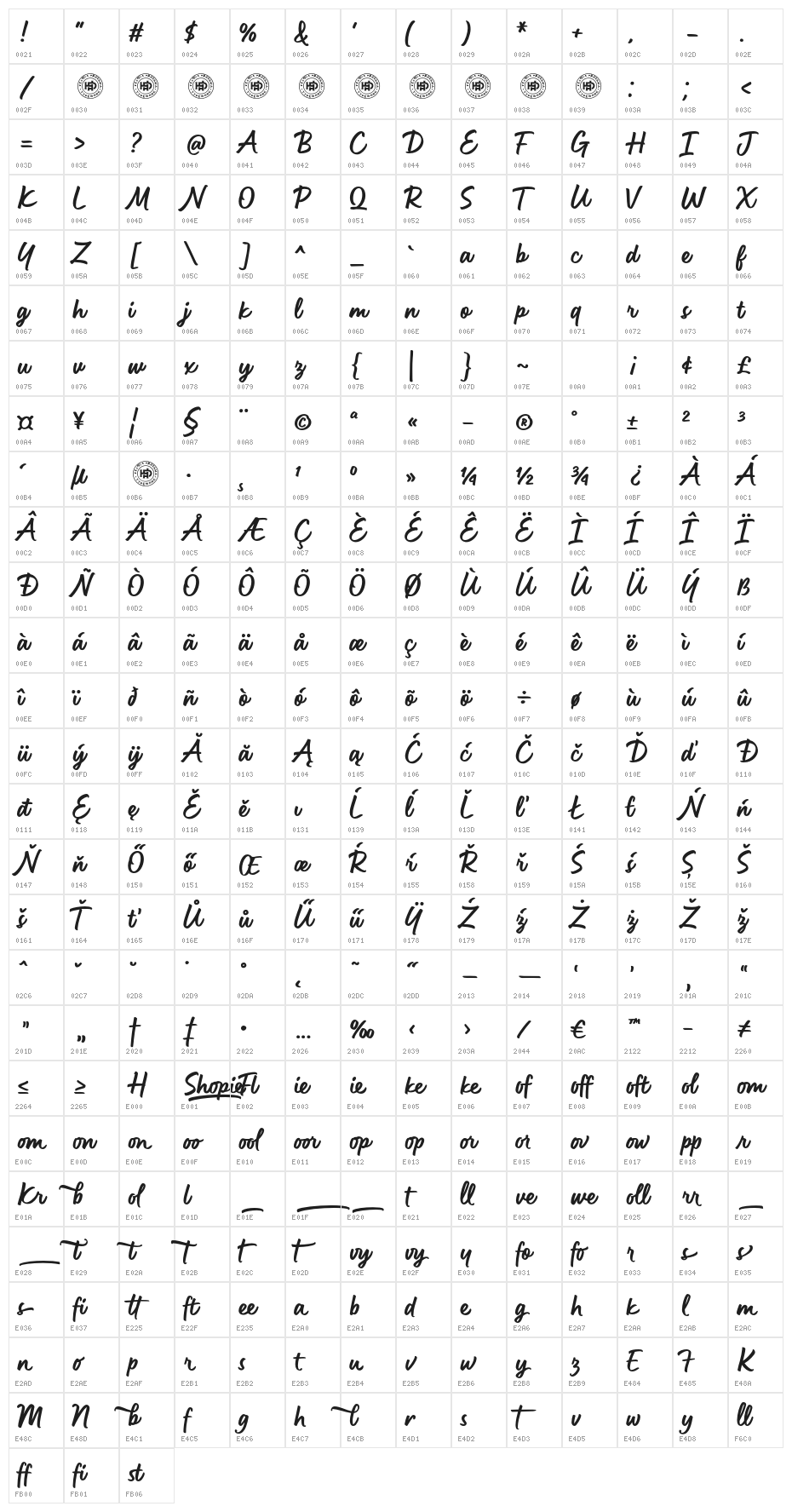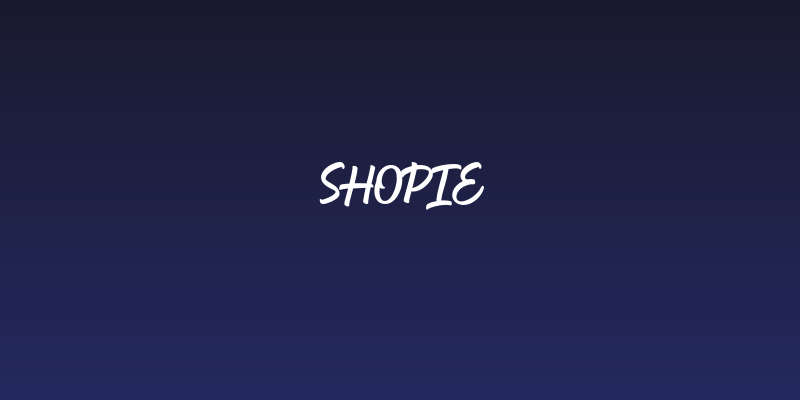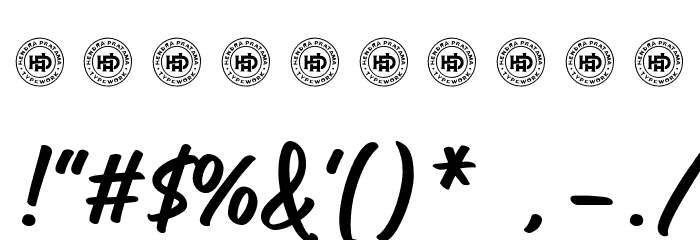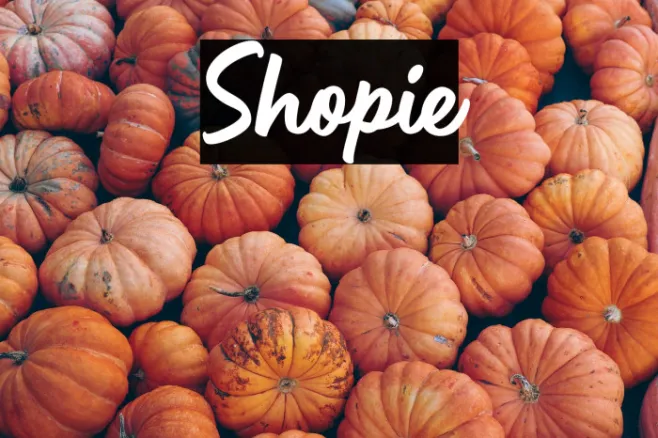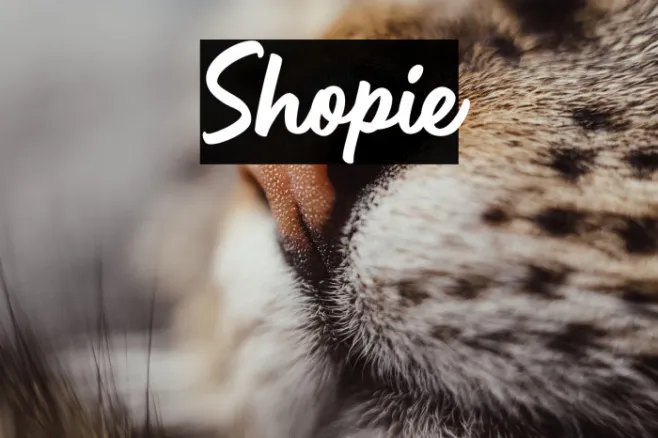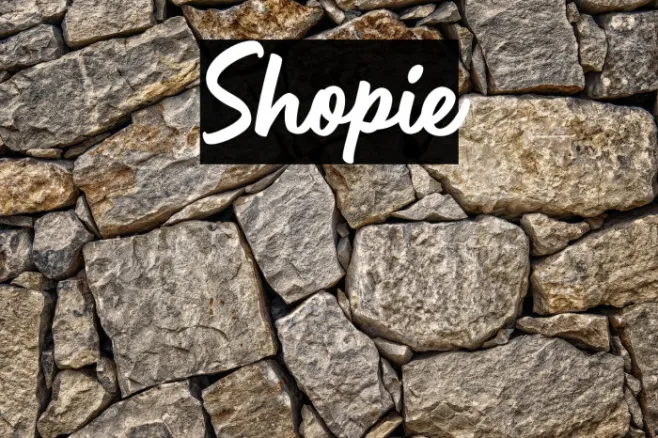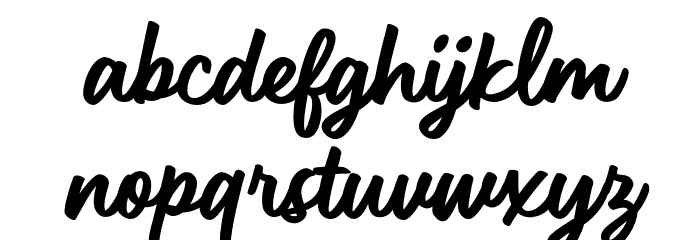
Shopie Font
Shopie Description
This font exhibits a dynamic and fluid script style, characterized by its smooth, flowing lines and elegant curves. The uppercase letters are bold and slightly slanted, giving a sense of motion and energy. The lowercase letters maintain a consistent style, with rounded forms and a playful yet sophisticated appearance. The numerals and special characters are designed to match the overall aesthetic, ensuring a cohesive look across all text. This font is ideal for projects that require a personal touch, such as invitations, greeting cards, or branding materials. Its unique style makes it stand out while remaining legible and versatile.
| Proposed Projects | Ideal for invitations, greeting cards, branding materials, and any project requiring a personal touch. |